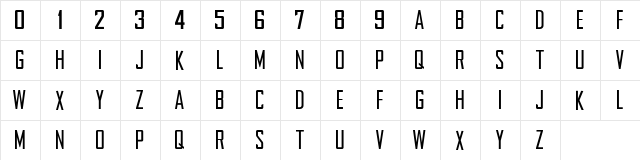
NFL Chargers 2007 Regular Font Preview
NFL Chargers 2007 Regular
Design Context for NFL Chargers 2007 Typeface
NFL Chargers 2007 offers clean, dependable letterforms without strong stylistic allegiance, making it a practical choice for designers who need flexibility.
Pro Tip: Use NFL Chargers 2007 in both headline and body roles to test its range before committing to a single application.